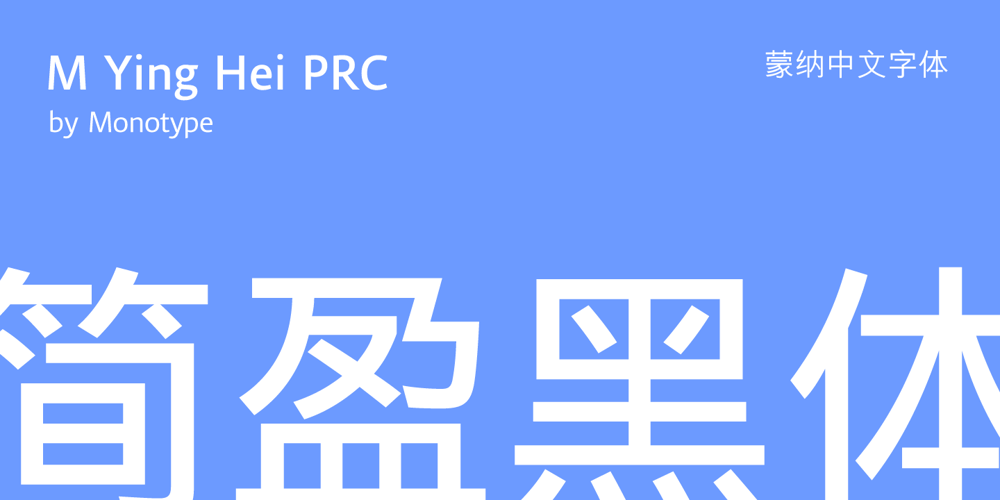
M Ying Hei PRC
M Ying Hei PRC font
M Ying Hei PRC Font Family was designed by Monotype HK Design, Kenneth Kwok, Robin Hui and published by Monotype HK. M Ying Hei PRC contains 7 styles and family package options. M Ying Hei™ is designed by type designer Kenneth Kwok and Robin Hui. Unnecessary details have been eliminated to pursue a minimal form. The structure of characters are well balanced, neat and dignified. Different components of a character are cooperating perfectly in an appropriate proportion. Thickness of strokes are modified according to the number of strokes, thus achieving an even texture throughout the paragraphs. Therefore a perfect choice for prints, user interface and signages. M Ying Hei™ is equipped with 7 weights, which is sufficient for various occasions like matching with different Latin typefaces and handling complex information hierarchy.